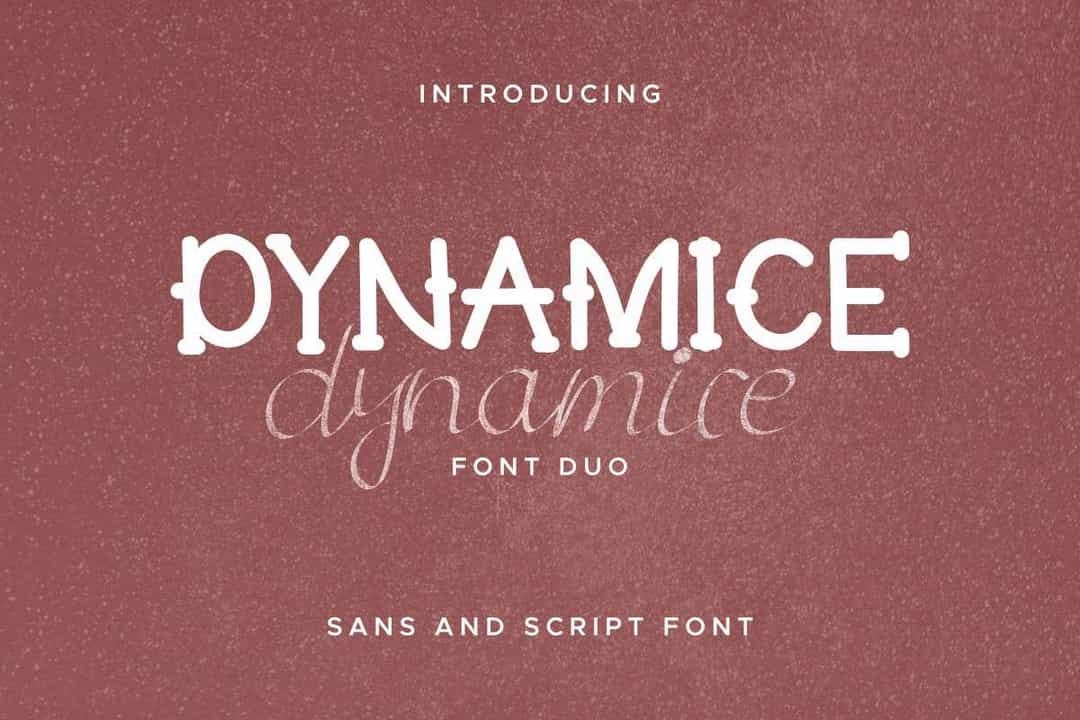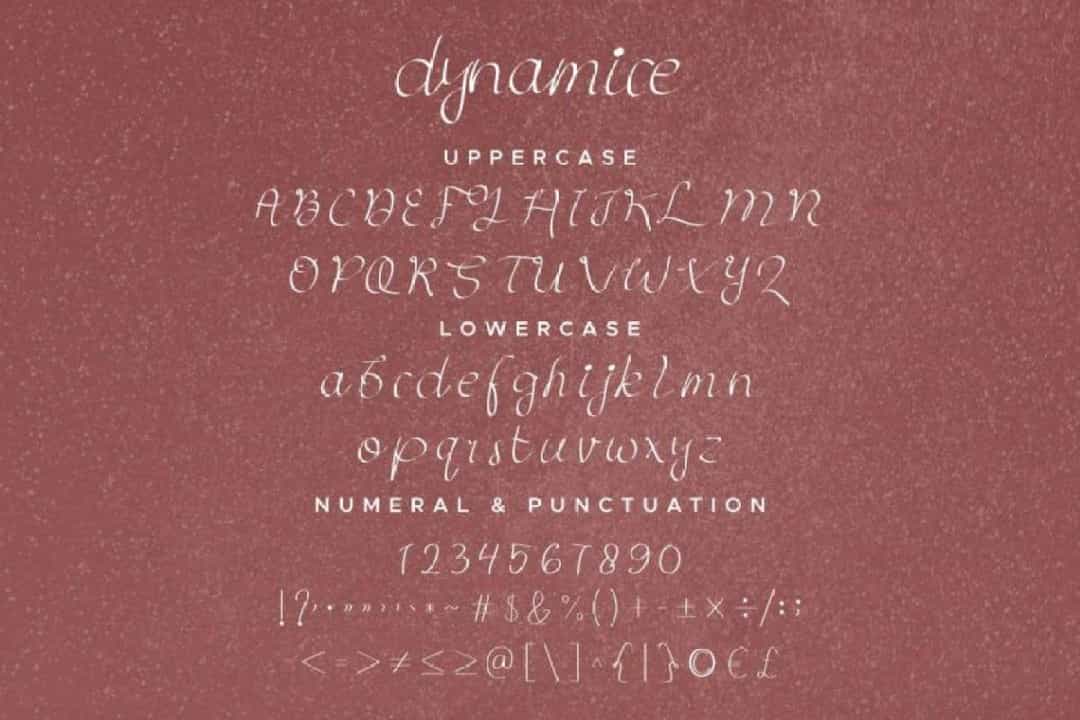
Dynamice Font Duo
Dynamice Font Duo. It is a dynamic duo of script and display fonts. Elegance is the principle that is used in the design of dynamic fonts. Both are stylish. The combination of these two fonts adds a sophisticated appearance to any design that includes social media posts, logos design, branding and product design, wedding designs, advertising design posters, quotes, and numerous other.